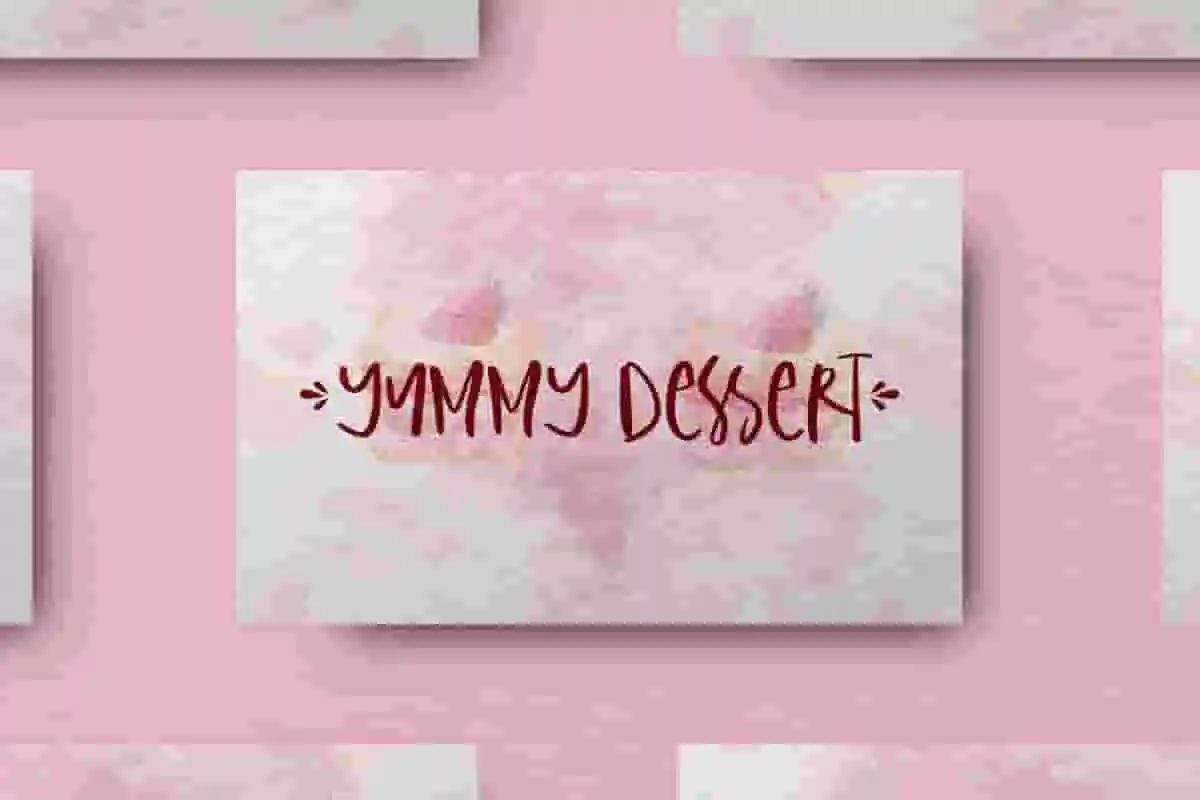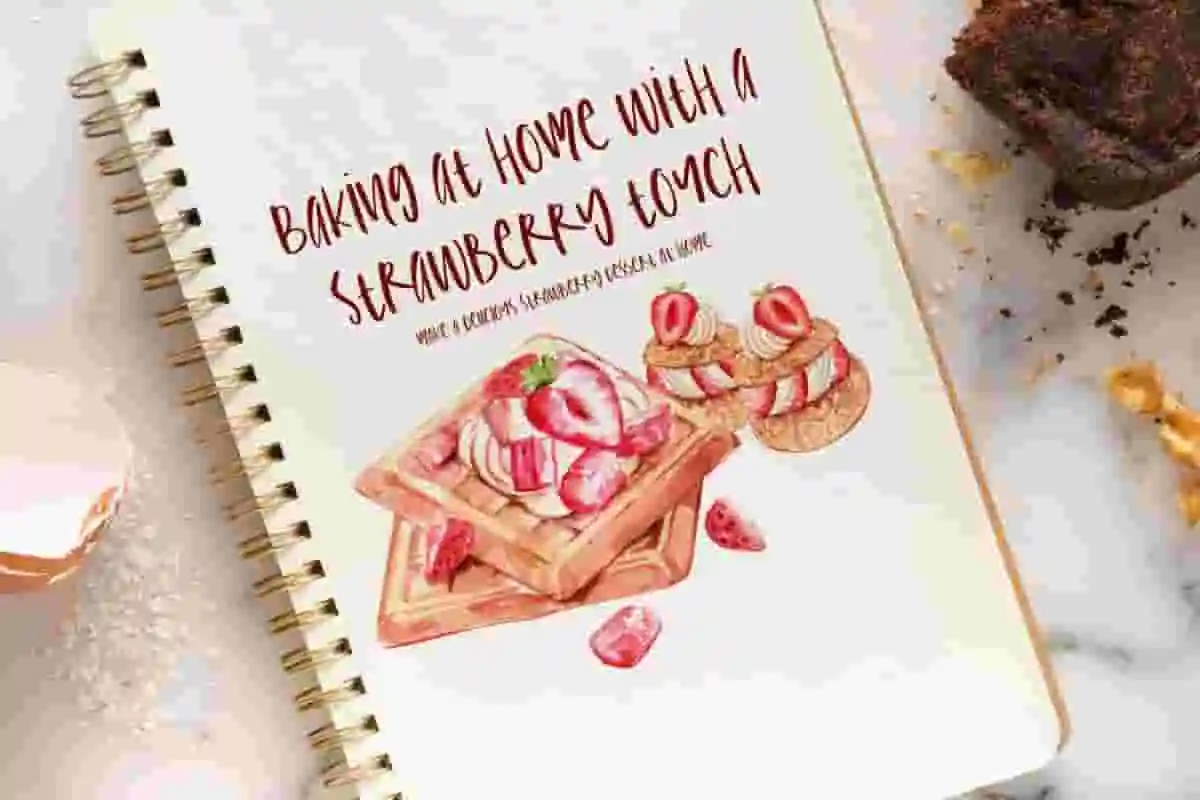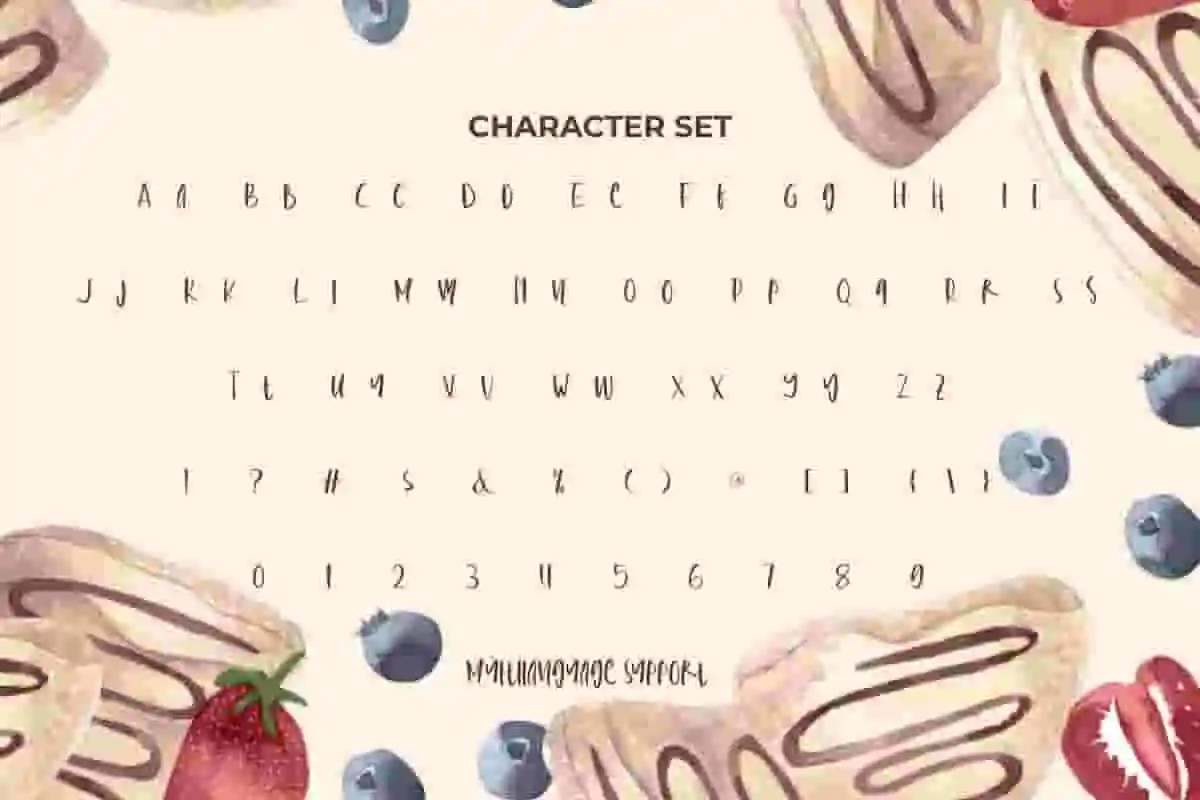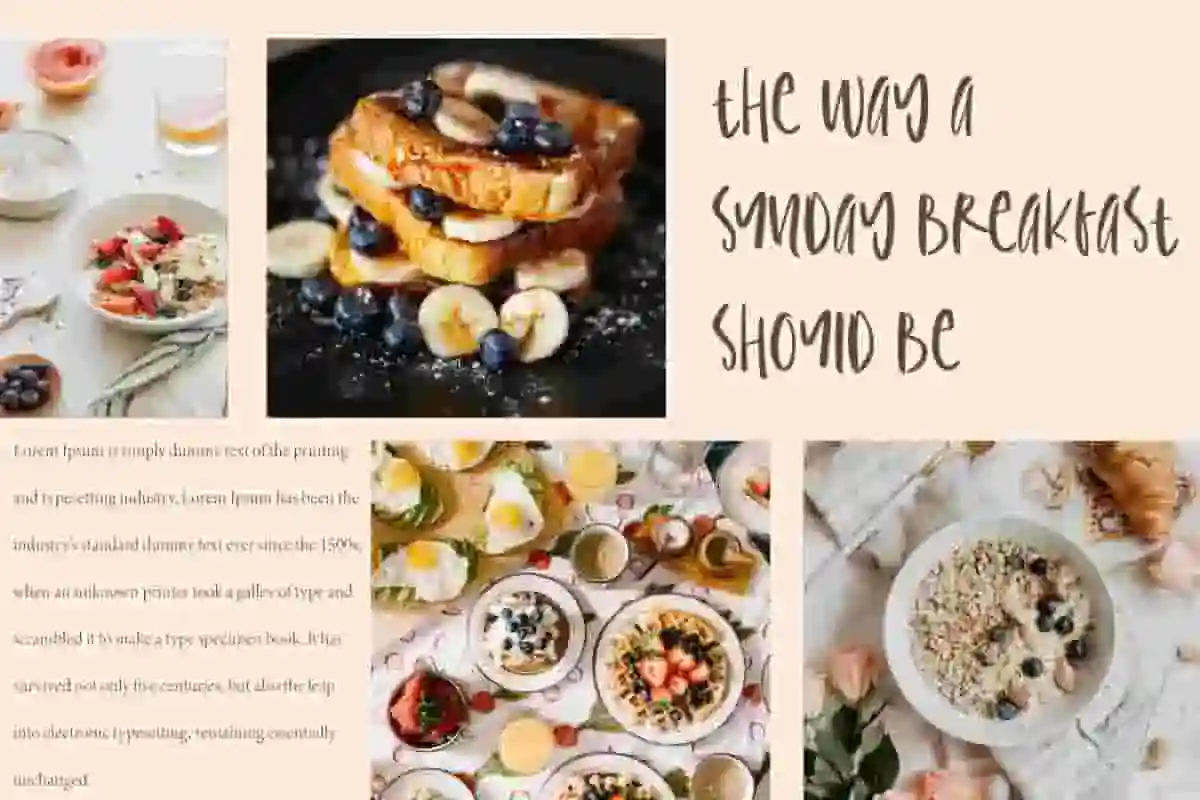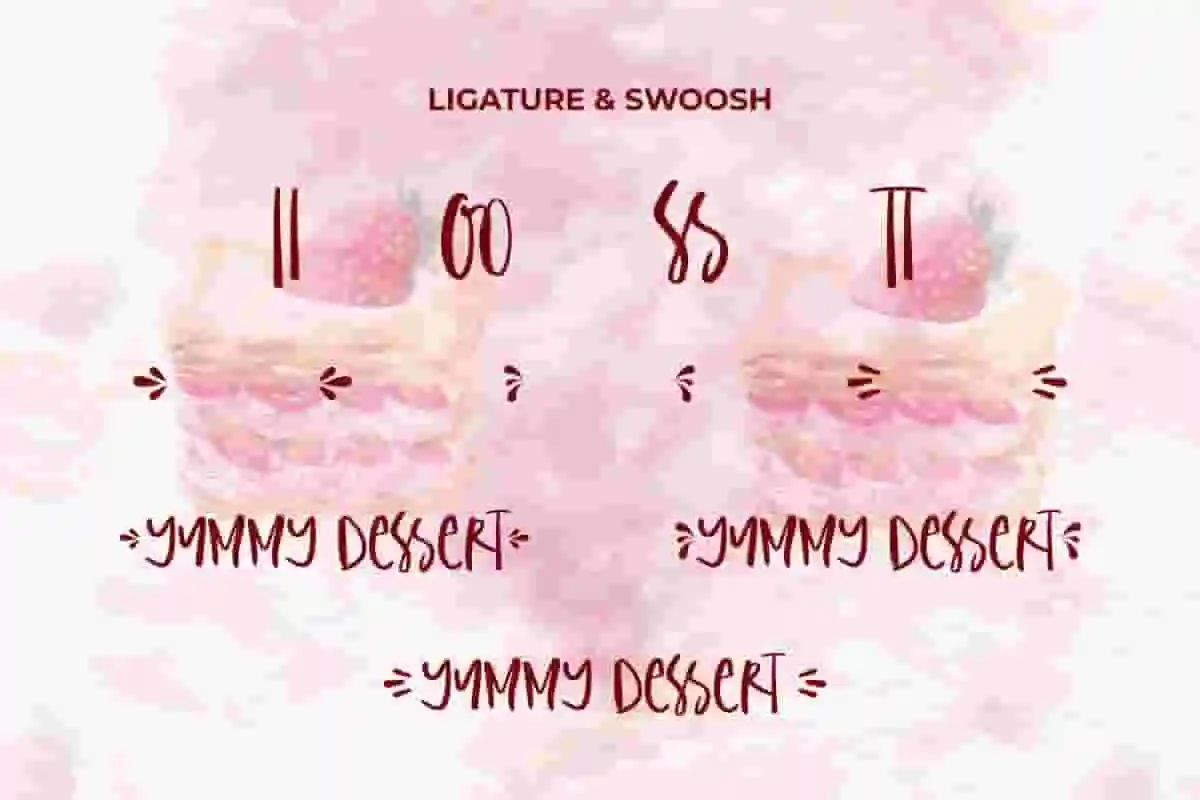
Yummy Dessert Font is a playful beautiful handwritten font with a unique and fun concept by NoahType Studio. This font can add a natural impression with the charm that each character has. It will be perfect for any designs, such as cover, invitation, brand image, custom design, label, marketing material, menu, poster, product packaging, quotes, signage, stationery, web, and many more!
Yummy Dessert Font includes full set of Uppercase and Lowercase Basic Characters, Numerals, Punctuation, and Symbol. This font contain Ligature and Swoosh characters that will be perfect choice for many industries, such as advertising, bakery and pastry, cafe, event or festival, furniture, photography, printing, publishing, etc.